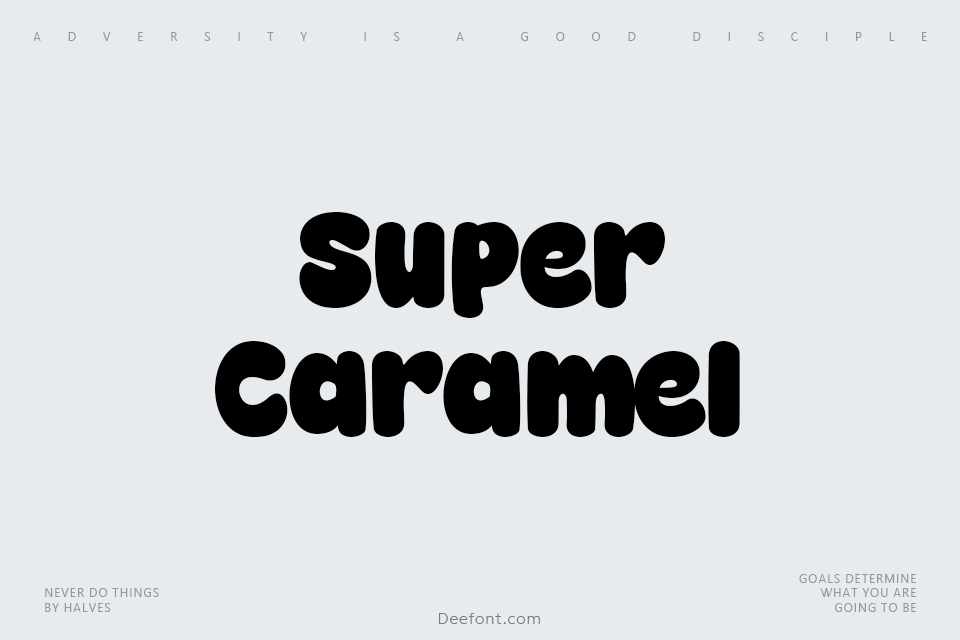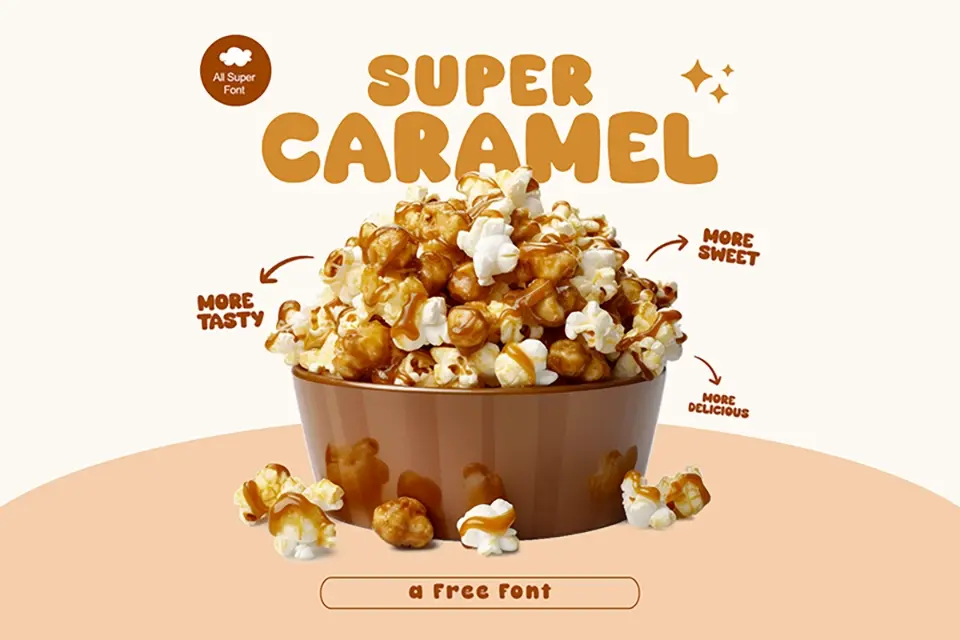
Super Caramel Font
Super Caramel is a playful and eye-catching cartoon-style display font, perfect for fun headlines, children’s books, packaging, or branding projects. Its bold, rounded letterforms bring a sense of whimsy and charm, making it ideal for designs that need energy and personality. Super Caramel supports a wide range of characters and accents, ensuring versatility for various creative applications. Enjoy this bold font for free, whether for personal or commercial work.
Designed by:fsuarez913Website